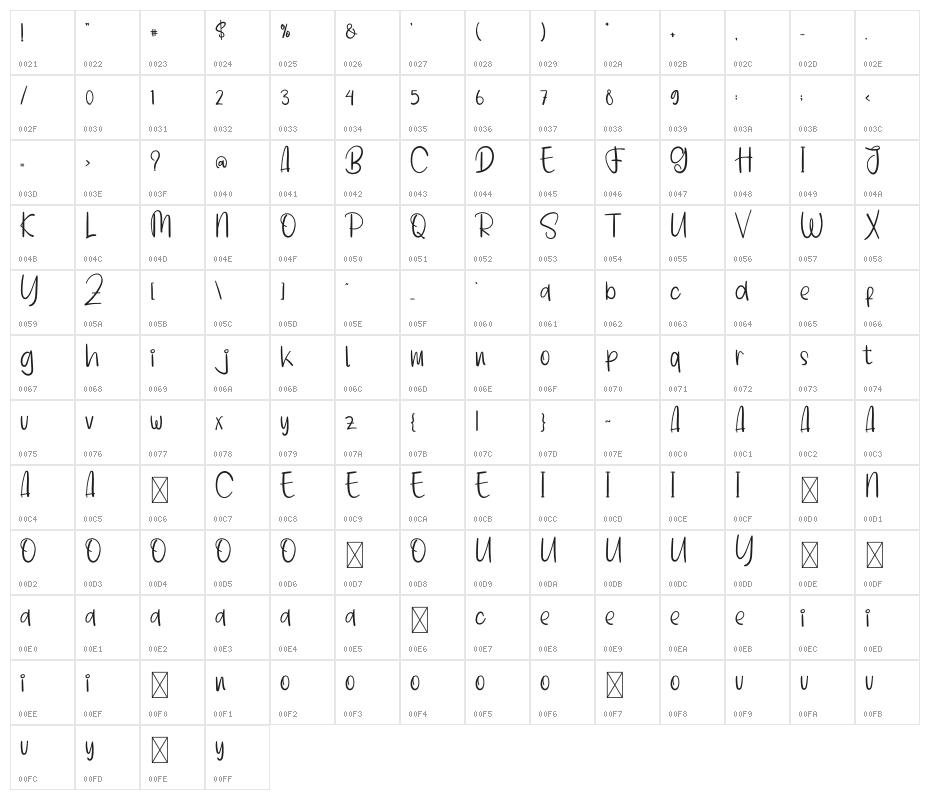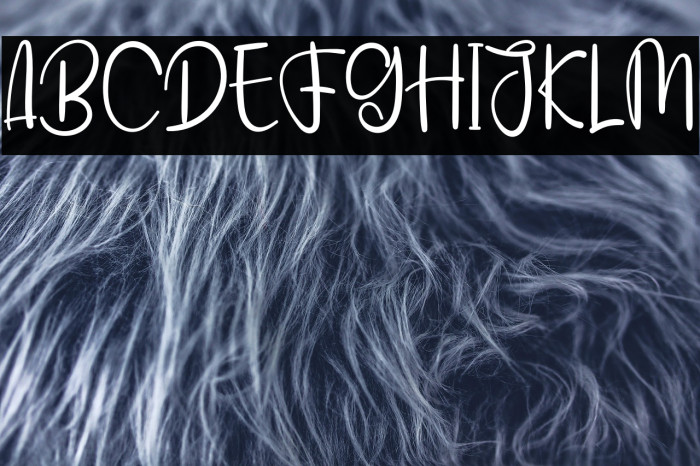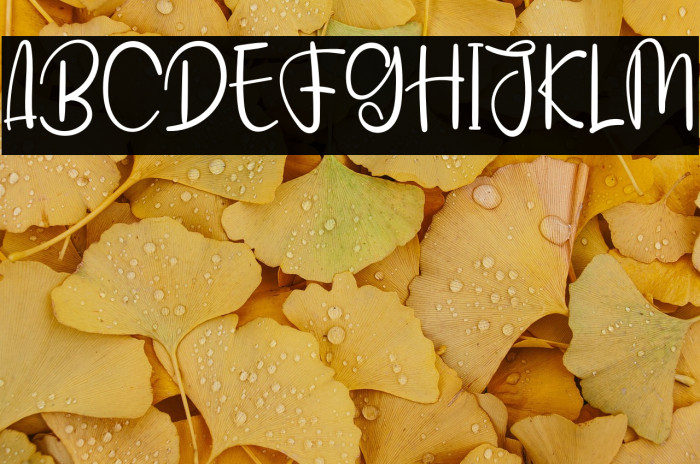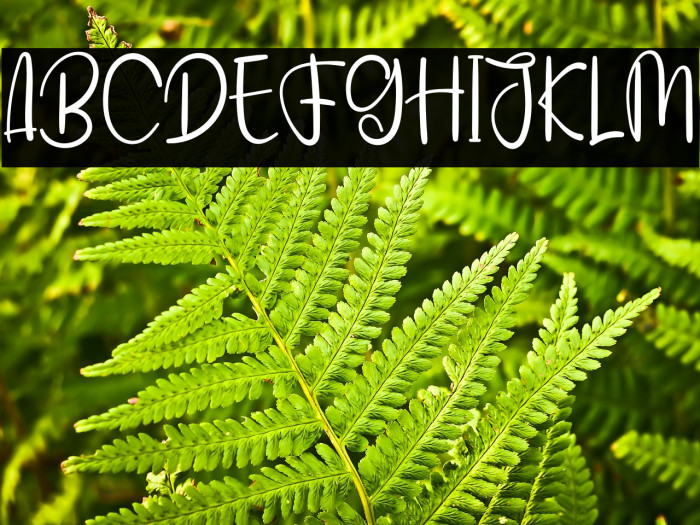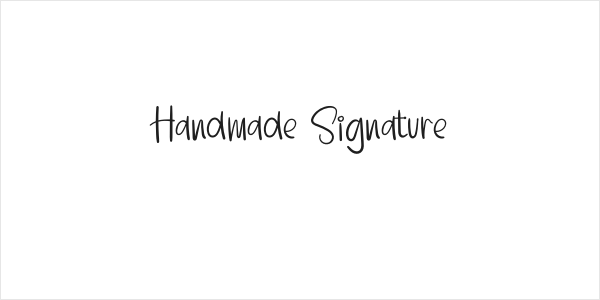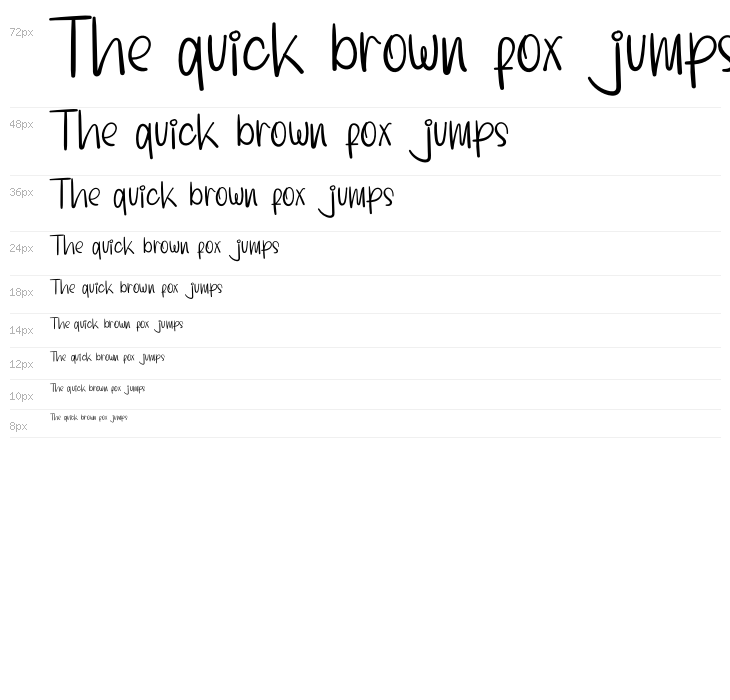
Handmade Signature Font
Handmade Signature Description
This font exudes a casual and playful handwritten style, characterized by its smooth, flowing lines and slightly irregular letterforms that mimic a natural handwriting feel. The uppercase letters are tall and slightly narrow, while the lowercase letters maintain a consistent height, adding to the font's legibility. The numbers and special characters are designed to match the overall aesthetic, ensuring a cohesive look across all text. The strokes are moderately thick, providing a balanced contrast that enhances readability without sacrificing the font's artistic flair. This font is ideal for projects that require a personal touch, such as invitations, greeting cards, or branding materials that aim to convey warmth and approachability.
| Overall Style | Casual, Playful |
| Use Case | Headlines, Logos, Invitations |
| Proposed Projects | Ideal for invitations, greeting cards, personal branding, and creative projects requiring a personal touch. |